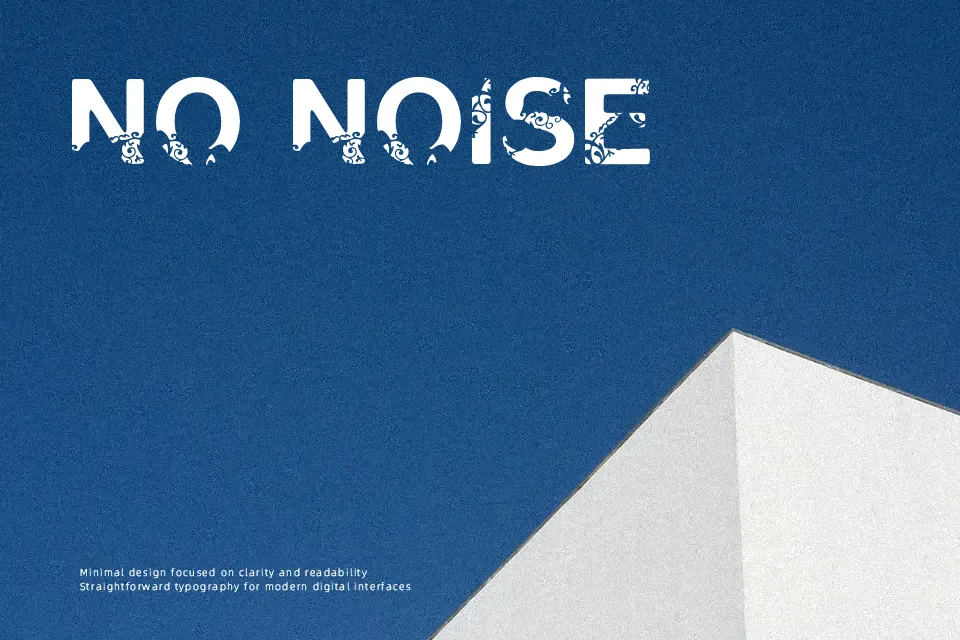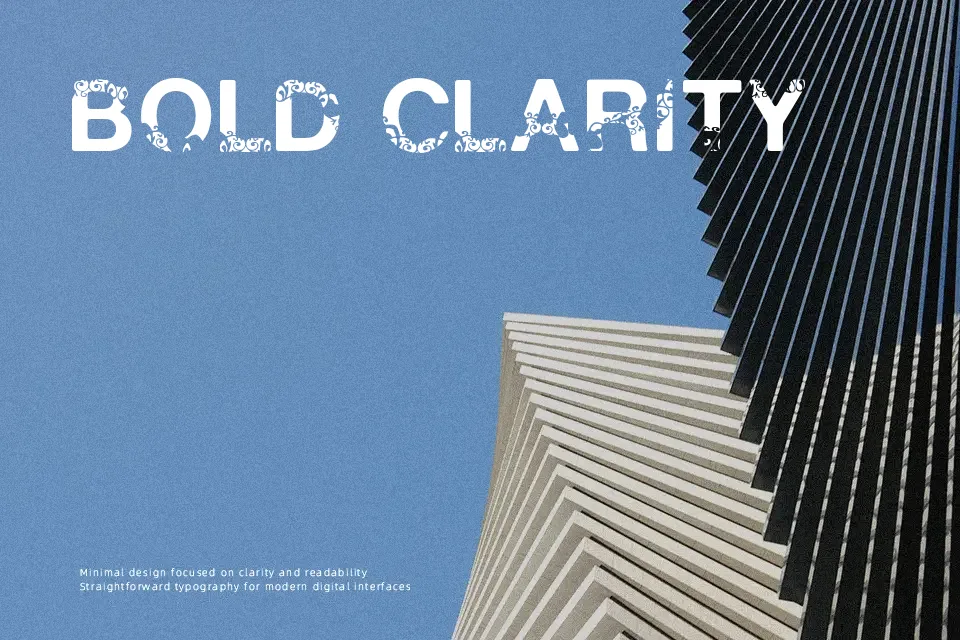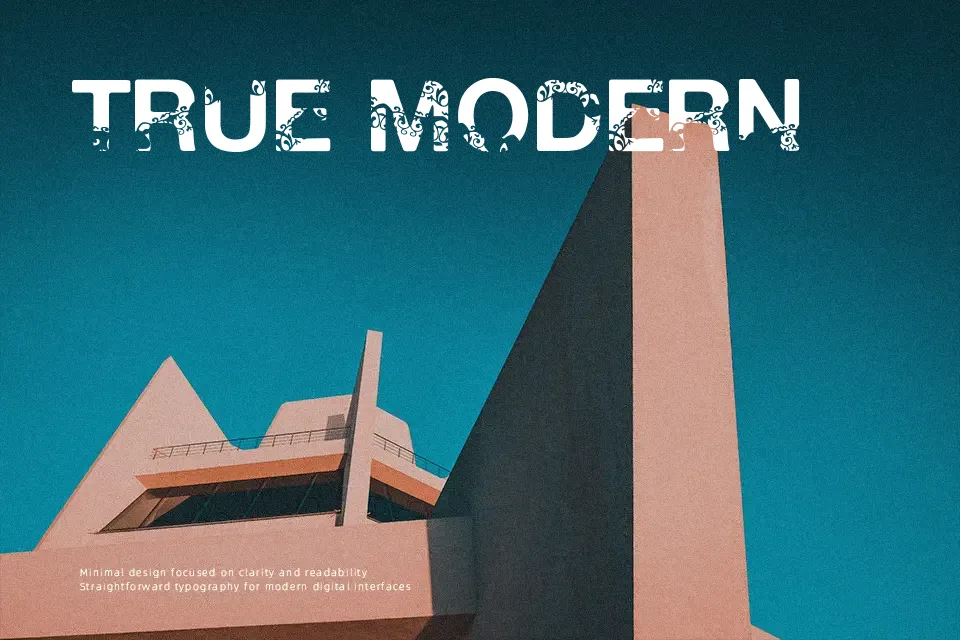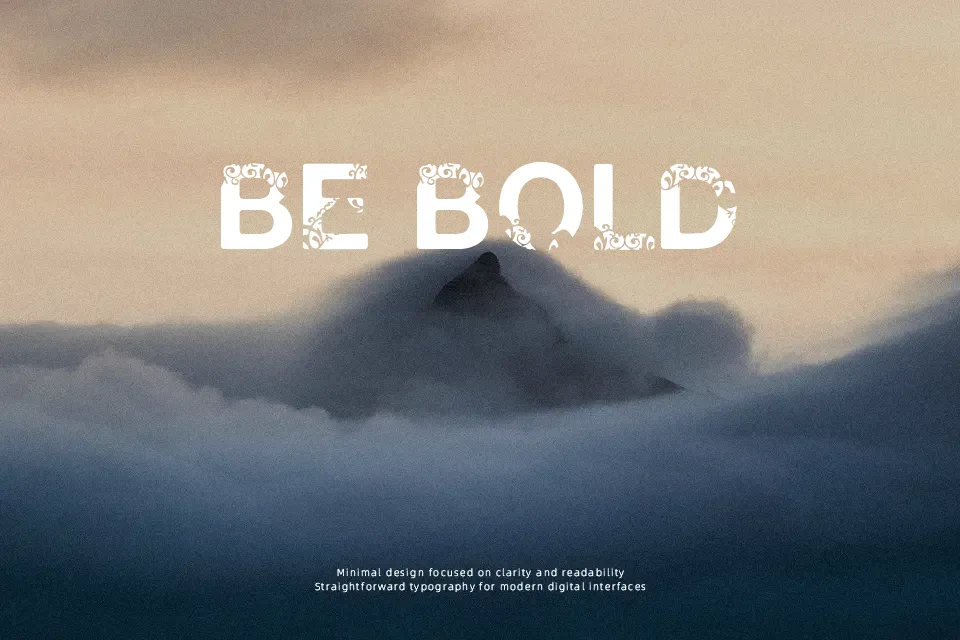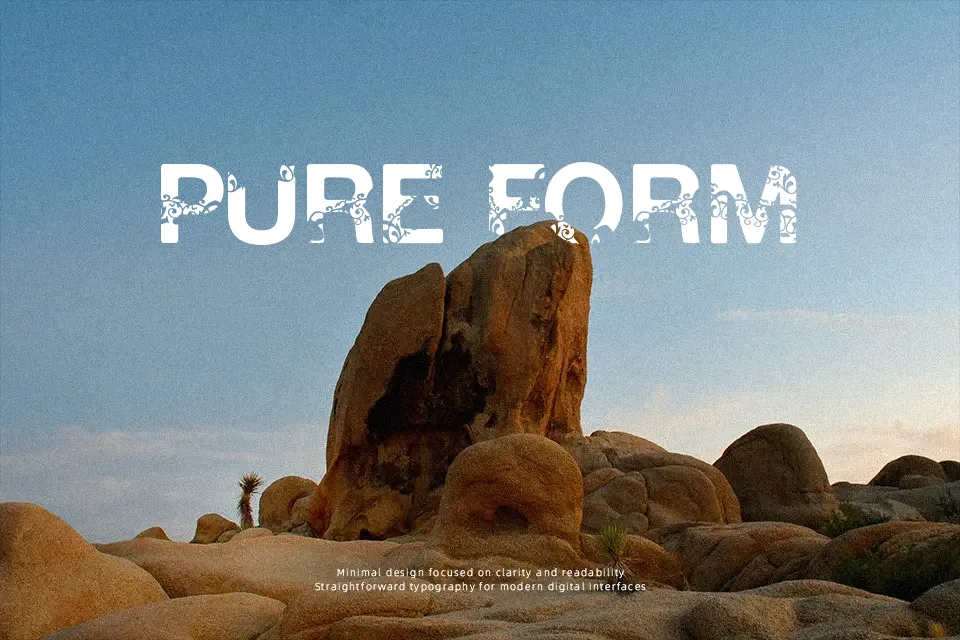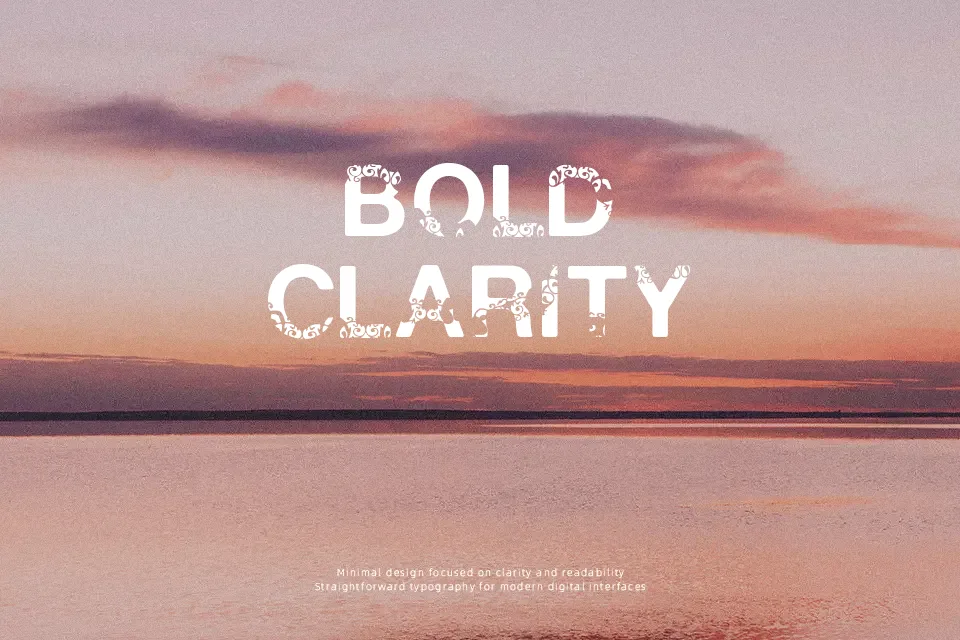
Polar Shift Font
Designed by LukerType
The Polar Shift Font commands attention through its heavy geometric strokes and distinct structural proportions. This decorative typeface features bold, blocky letterforms with tight spacing and solid terminals, creating a striking visual rhythm across display settings. The dense character width maximizes impact in short text, though the heavy forms and compact spacing reduce continuous reading comfort in smaller sizes. The spacing helps maintain clarity in larger headlines, making the letterforms highly effective for prominent applications. This design is highly recommended for energetic poster layouts, striking apparel graphics, and modern brand identities where maximum visual weight is required. However, the decorative details become less effective at smaller sizes, limiting its use in extended editorial paragraphs.
modern poster designs, bold packaging headers, striking apparel graphics, energetic brand identities
long paragraph text, dense editorial layouts, small interface labels, spreadsheet data
Perfect for branding, headline, and packaging, with a bold and decorative style.